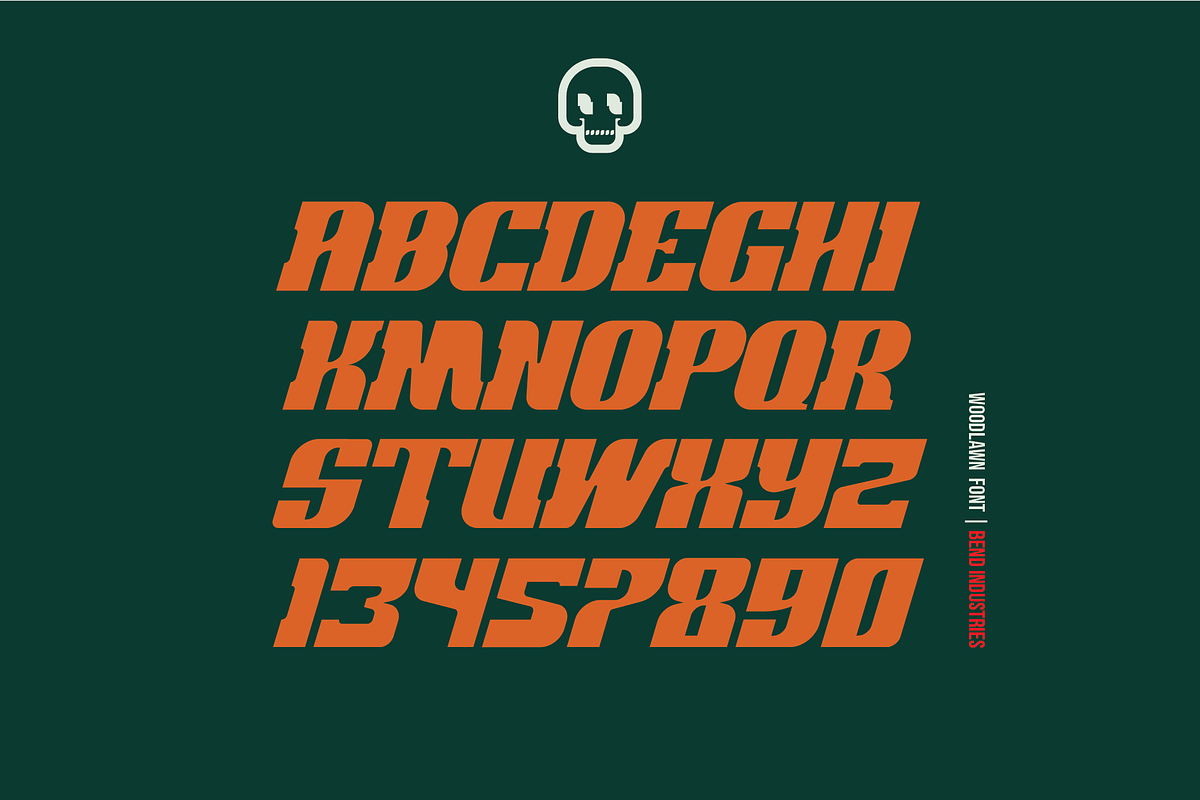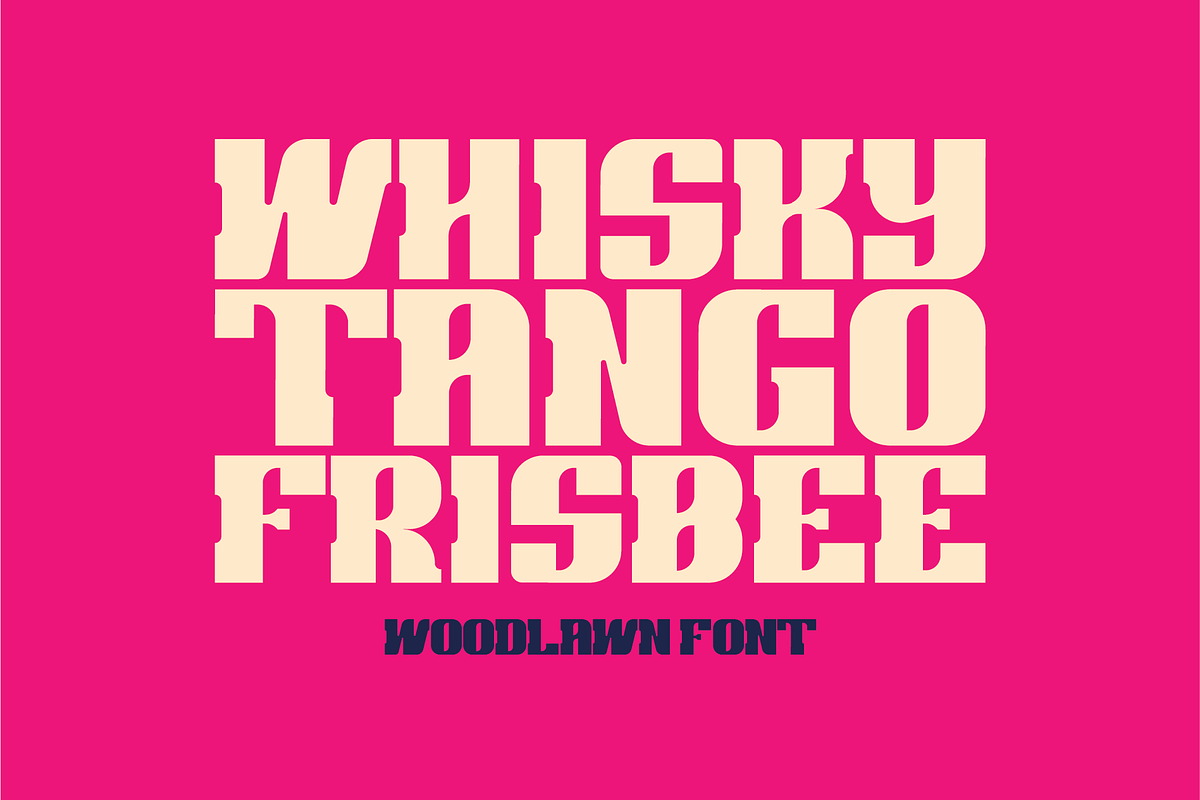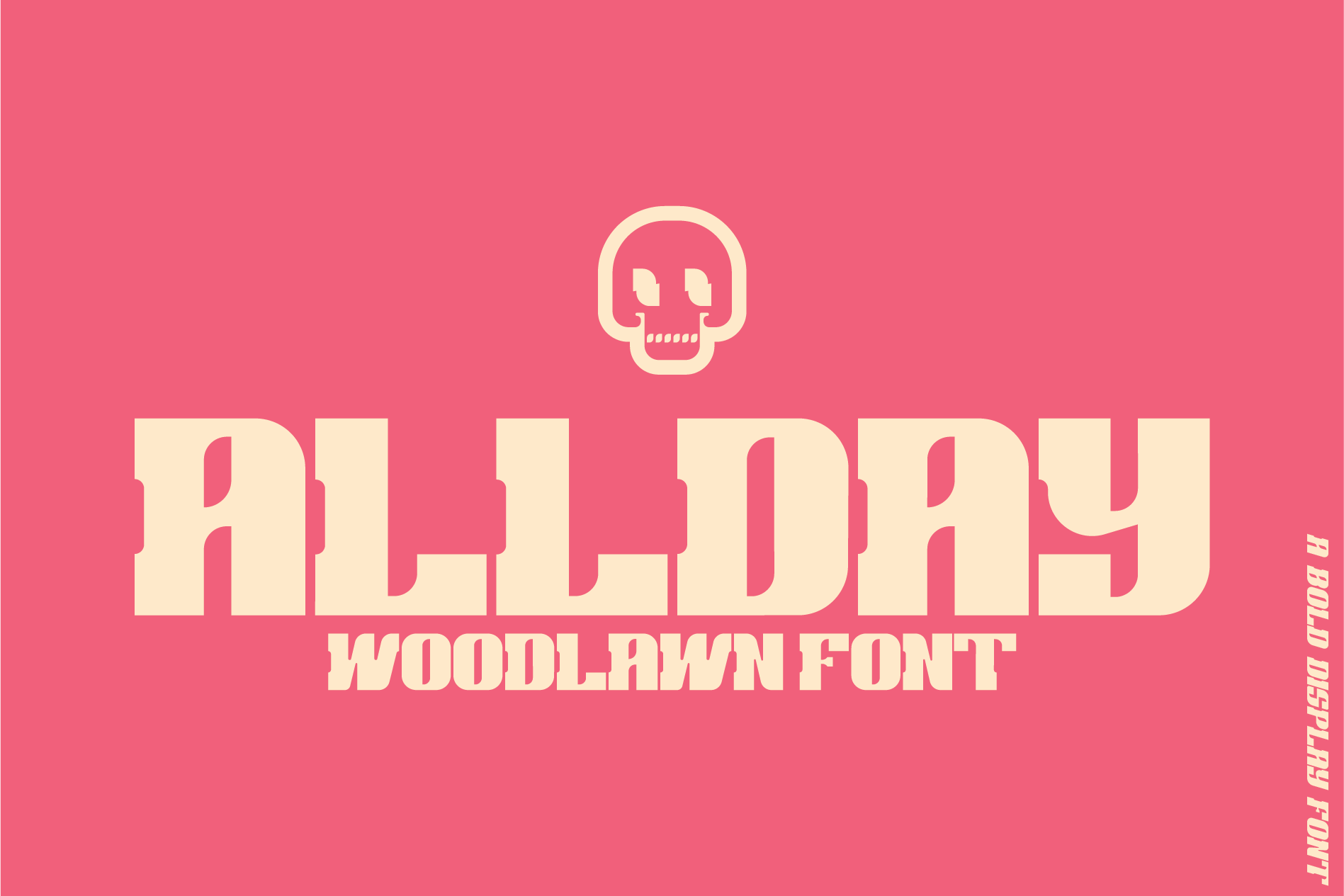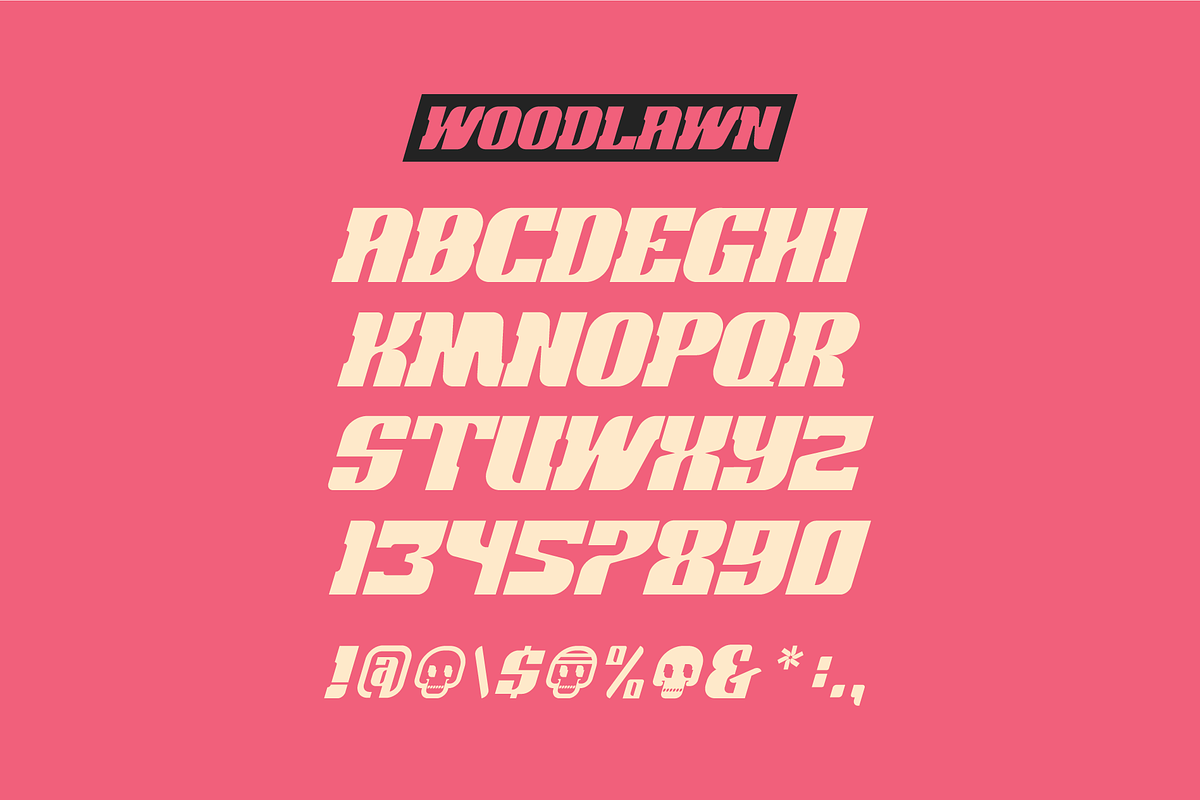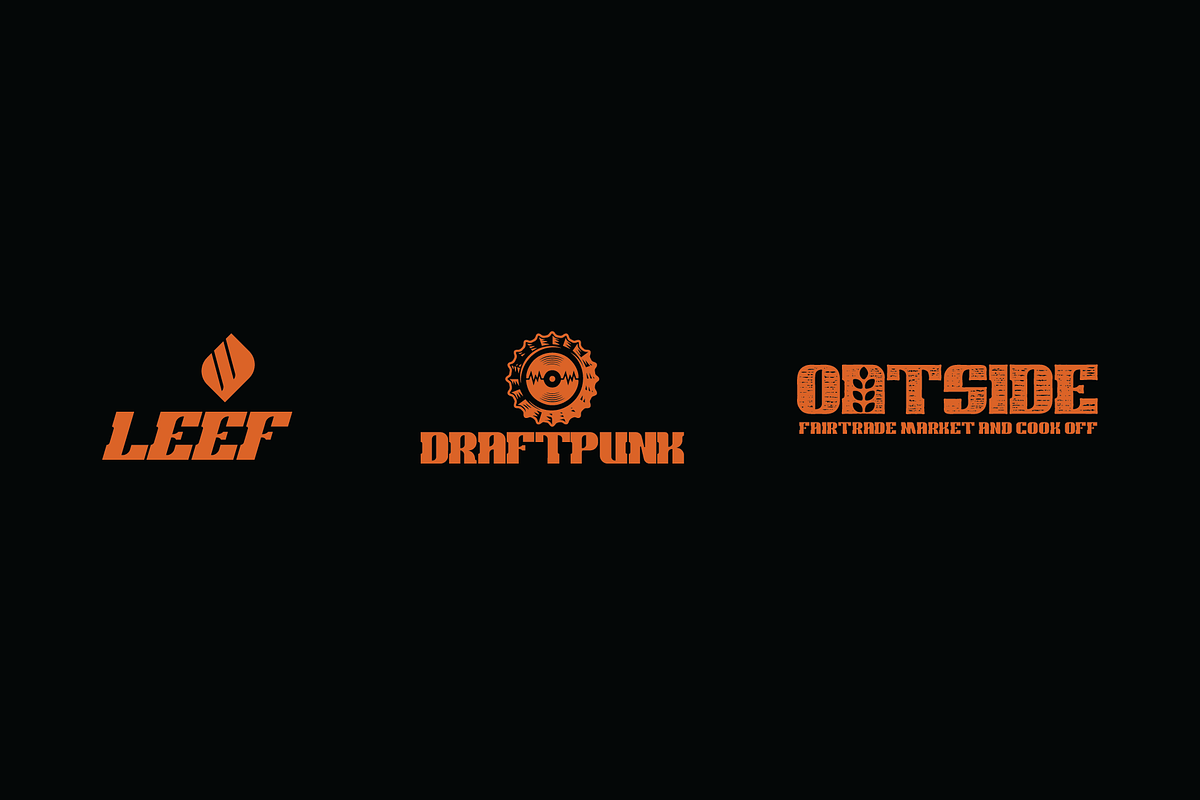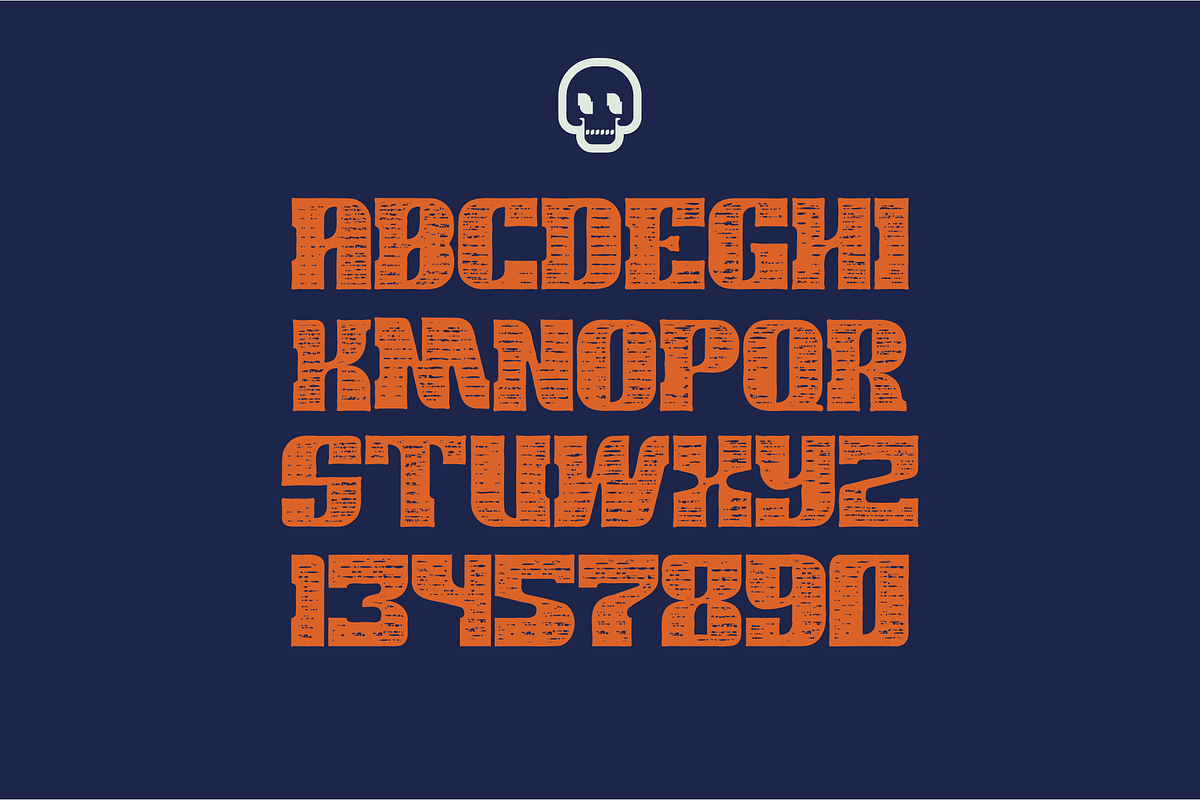
Woodlawn Font | 3 Styles
Woodlawn Font | Italic A Bold display font perfect for poster art, brochure work, apparel design, marketing material, logo design, and any other project where a bold display font is needed.